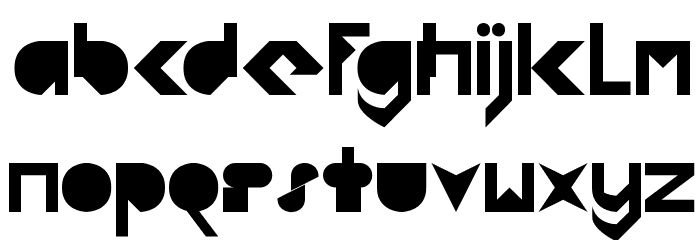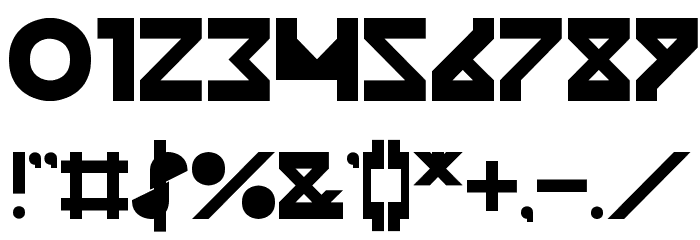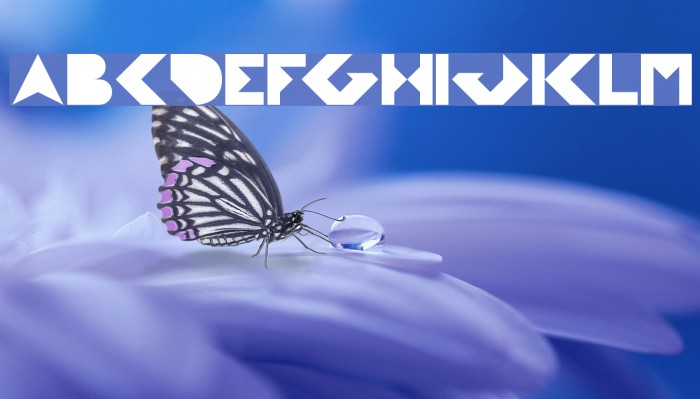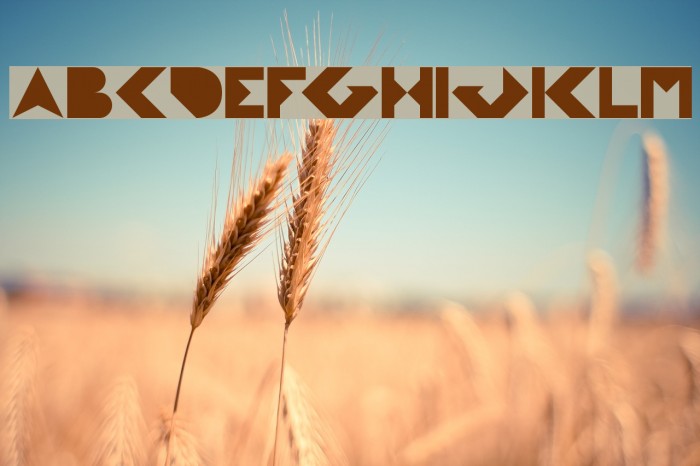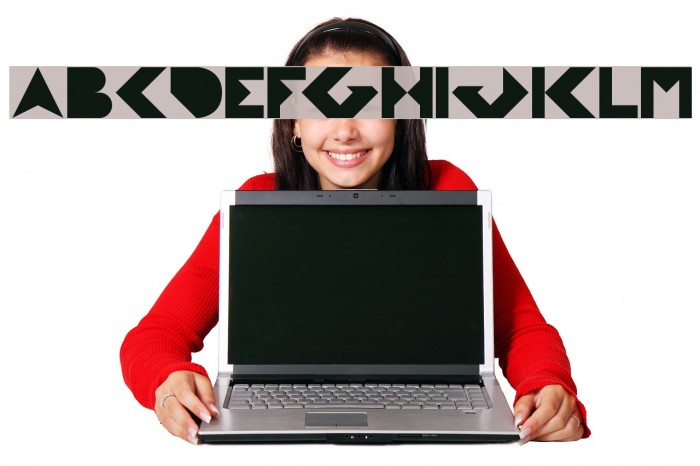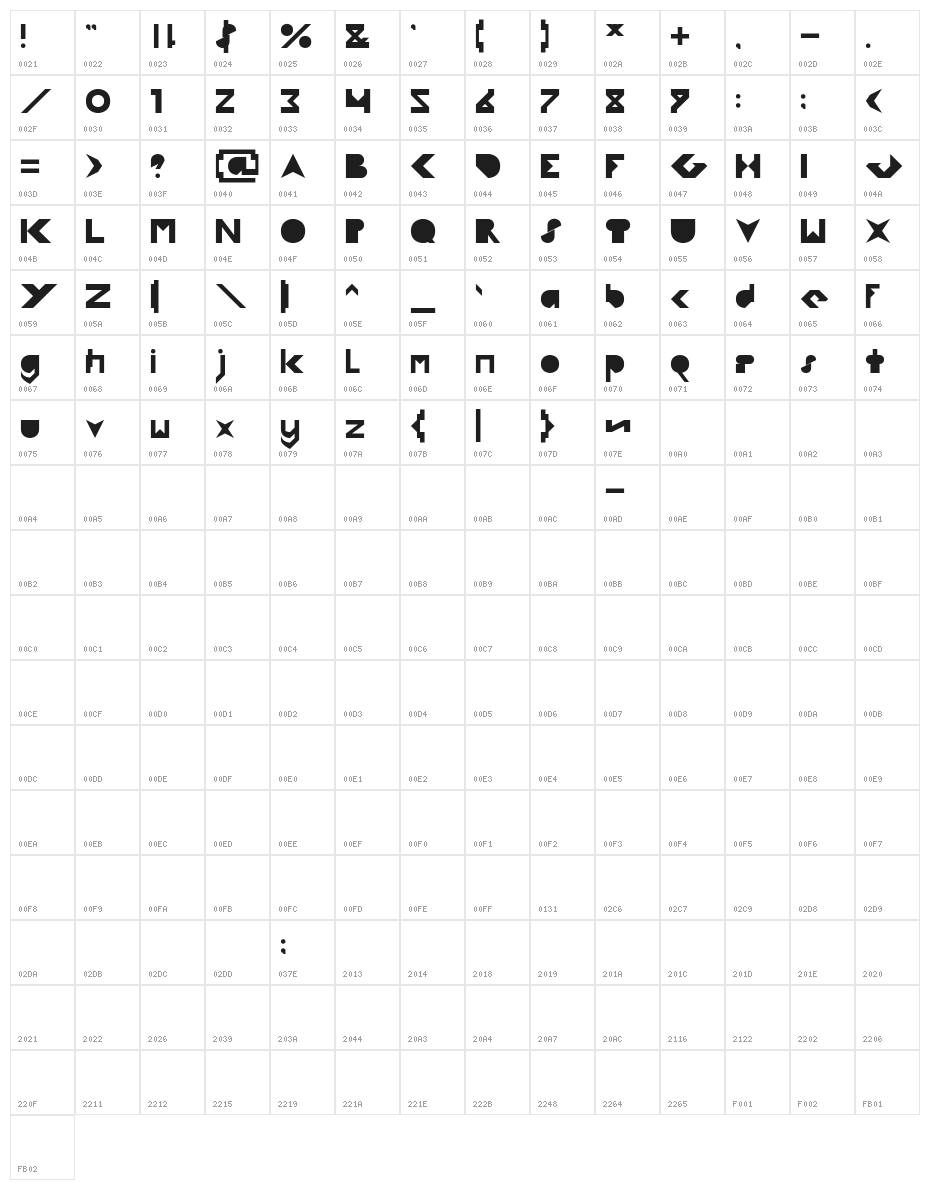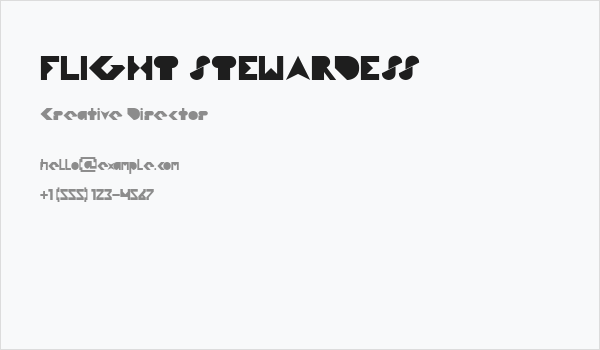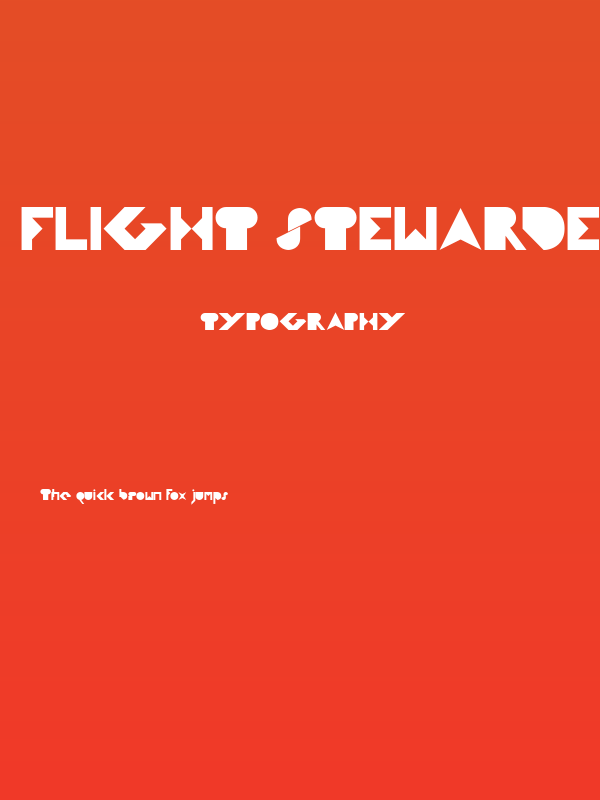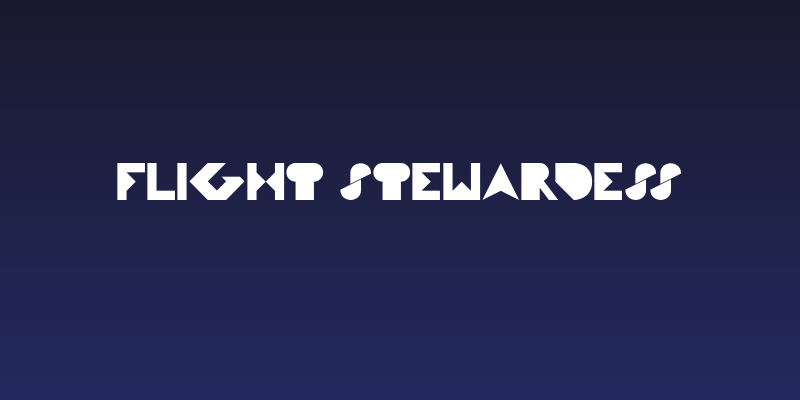
FLIGHT STEWARDESS Font
This font features a bold and geometric design, characterized by sharp angles and a futuristic aesthetic. The uppercase letters are distinct with angular cuts and a blocky appearance, while the lowercase letters maintain a similar style with slightly softer edges. The numbers are consistent with the overall geometric theme, offering a modern and edgy look. Special characters are creatively designed, incorporating the same angular and bold elements. This font is highly stylized, making it suitable for attention-grabbing headlines or unique branding projects.
A bold, geometric font with a futuristic and edgy style.
- Proposed Projects: Ideal for sci-fi themed designs, modern branding, posters, and digital media projects.